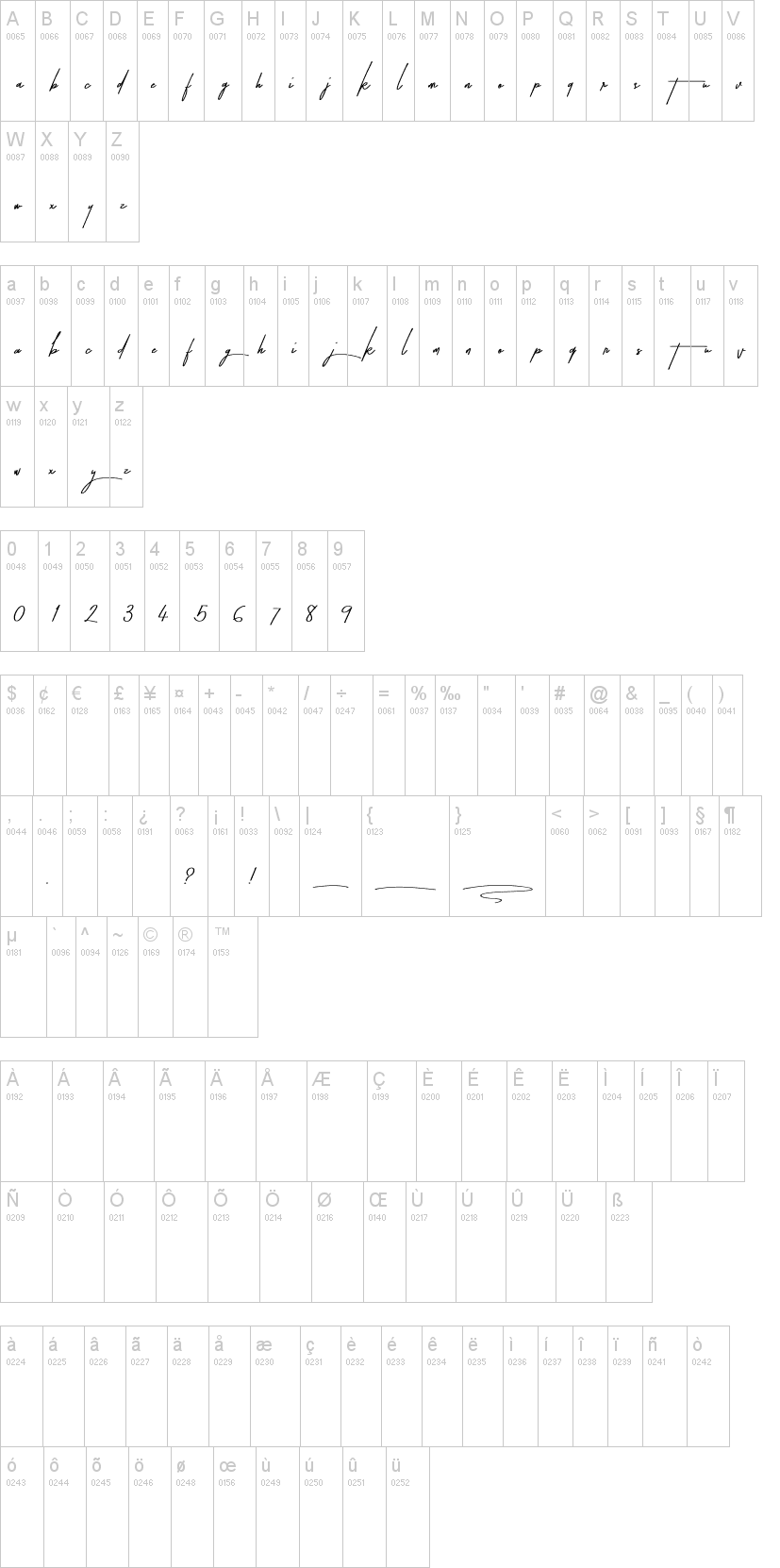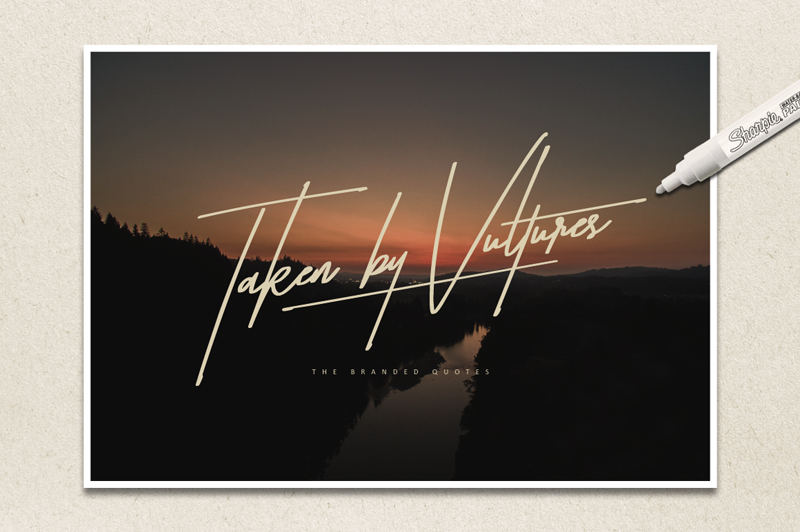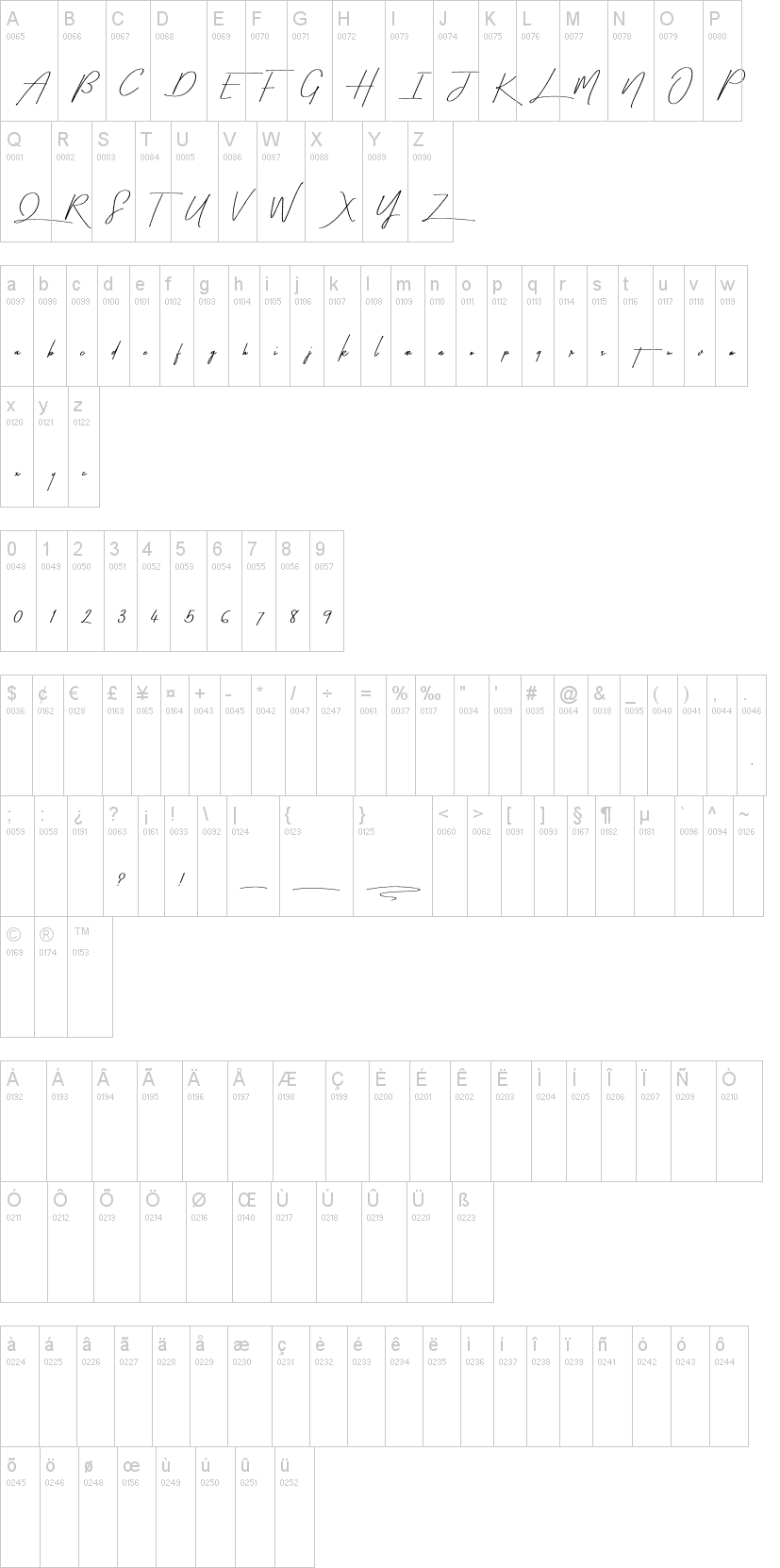
About this font:
Taken by Vultures - a one of a kind offering to the hand-lettered typefaces with a strong connection to photography and branding. The blending of the most unique-looking glyph. Taken by Vultures can work as your new signature text or as a solid cover to your presentations. Now let your projects standout!
Taken by Vultures - gives you the uppercase, lowercase, punctuation, numerals, a ligature and alternates of the font. Don't forget to use the swashes found on some of its punctuation!
Taken by Vultures Alternates - the combination of the lowercase regular and some alternates which makes the font more unique!